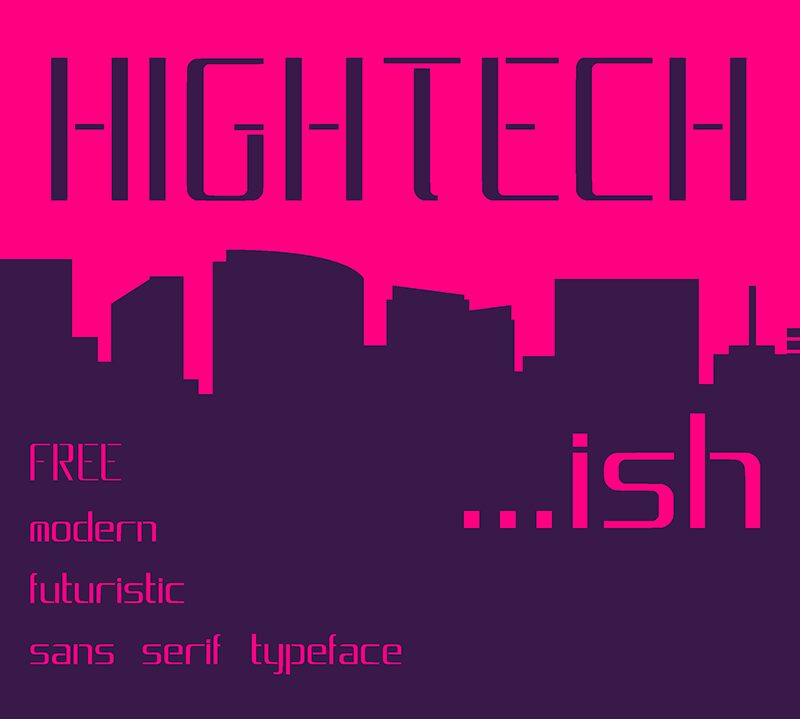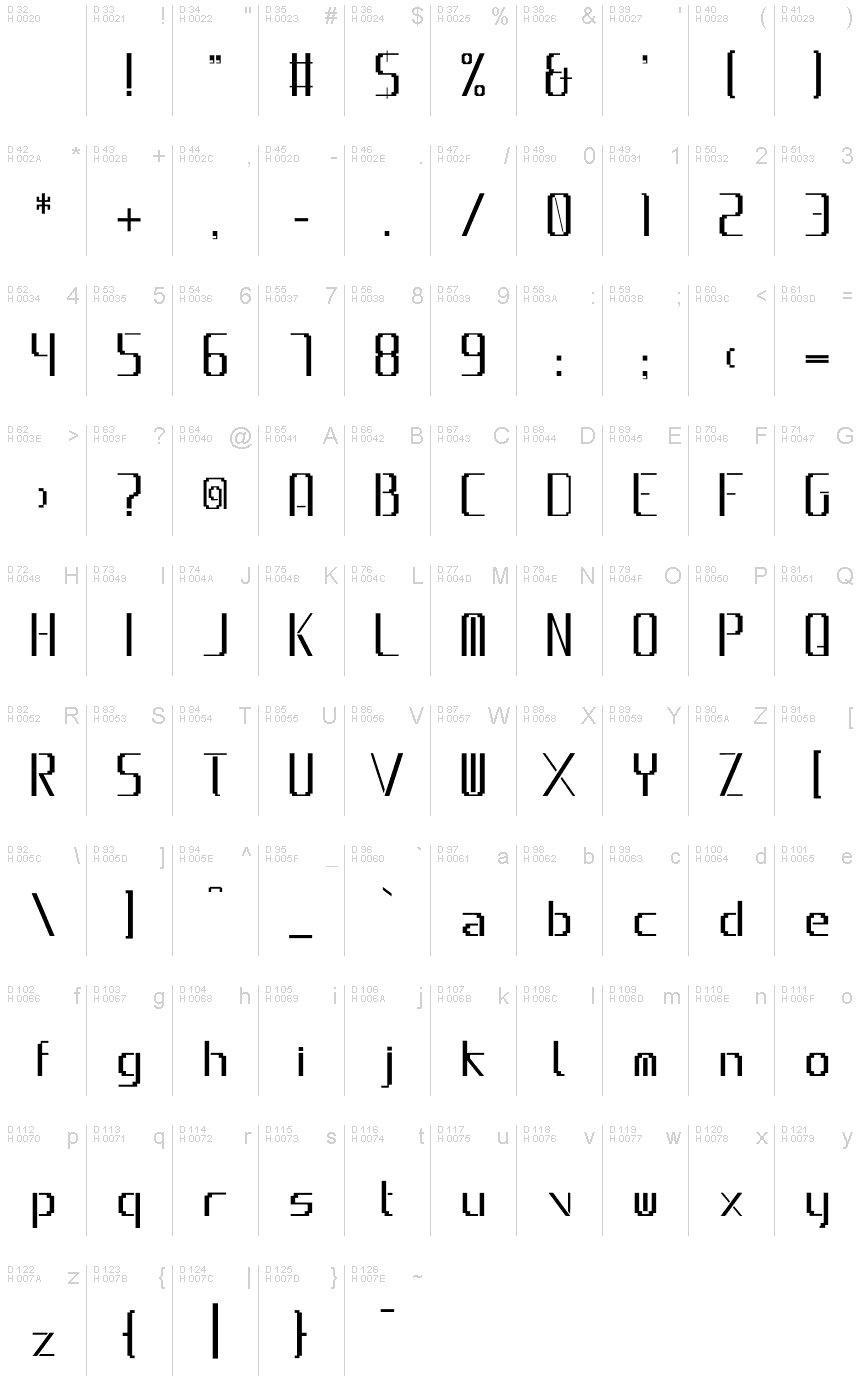
HighTech...ish Pixelated
HighTech...ish (Smooth) is not an entirely original work. It's based on a font I used in a computer game I made around 2008. I no longer own the original font, I can't remember what it was called and it seems to have disappeared completely from the Internet (and believe me, I spent a hell of a lot of time looking), so I tried to remake it myself, using screenshots of my decade-old game as the basis to draw some of the characters and making the rest from scratch.
As such, there's a chance you find some of the glyphs (mainly the uppercase letters) familiar. That said, even those characters went through several changes and improvements, some being remade from scratch; and everything else including numbers, portuguese/spanish/french/german/swedish support characters, punctuation signs and other miscellaneous glyphs were created by me, as well as the "Pixelated" and "Blocky" variations of the font, making HighTech...ish an almost completely new typeface.